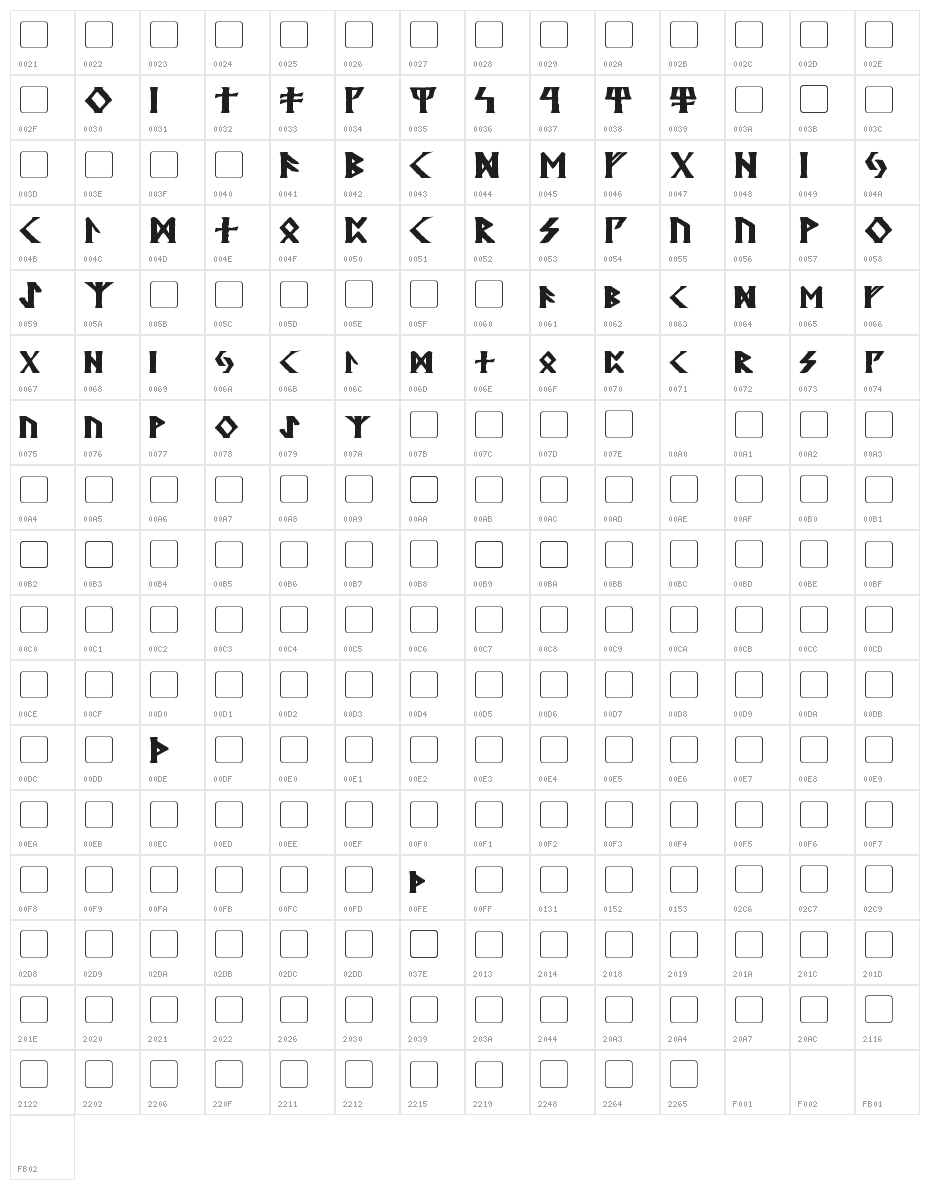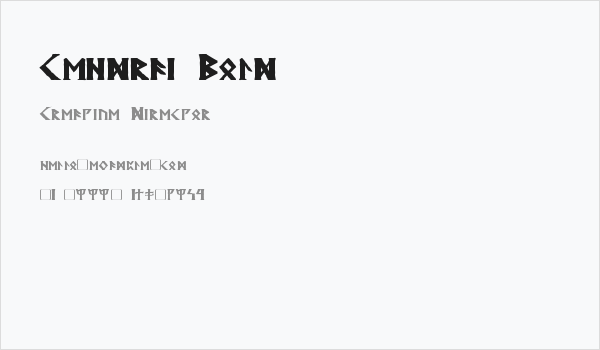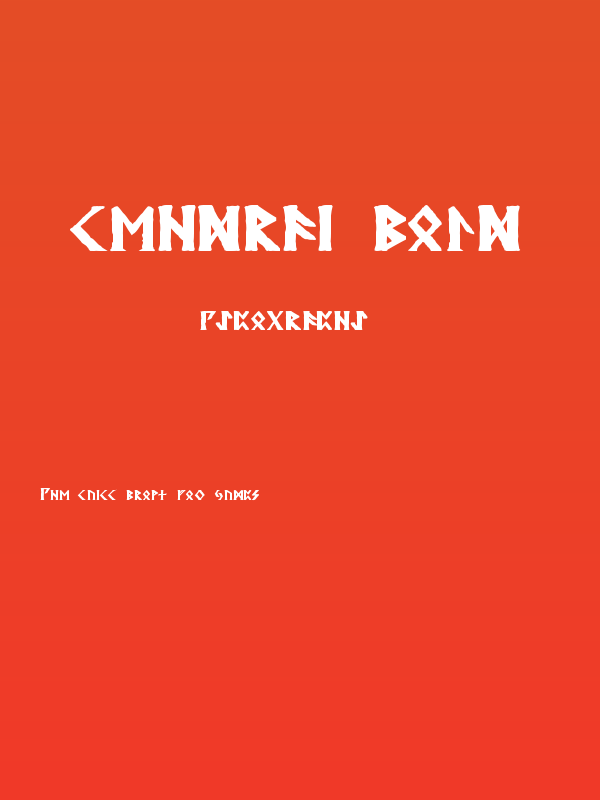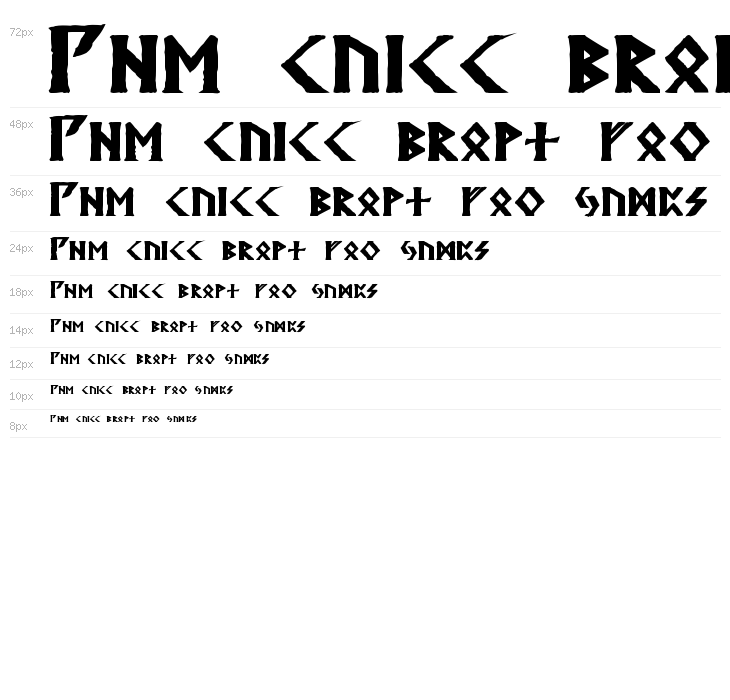
Kehdrai Bold Font
Kehdrai Bold Description
This font features a bold, angular design reminiscent of ancient runic or tribal scripts. The characters are heavily stylized with sharp edges and a strong geometric influence, creating a sense of mystery and ancient power. The uppercase letters are particularly striking, with each character exhibiting unique cuts and angles that contribute to an overall impression of strength and boldness. The lowercase letters maintain this theme, though they are slightly more subdued in their angularity. The numbers and special characters are consistent with the font's overall style, ensuring a cohesive look across all text. This font is ideal for projects that require a dramatic and impactful visual presence.
| Proposed Projects | Ideal for fantasy-themed designs, video game titles, movie posters, and branding for products with a rugged or ancient theme. |